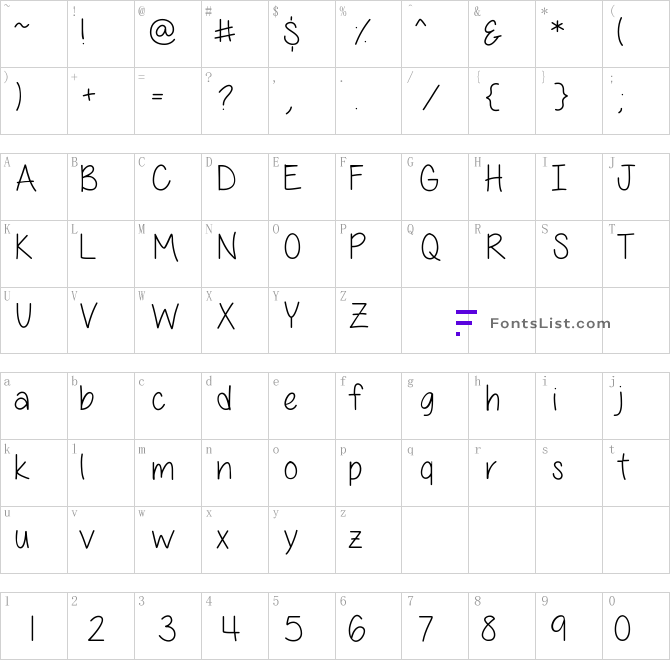
- Font Name:All Things Pink Skinny
All-Things-Pink-Skinny.ttf is a very beautiful artistic font, All-Things-Pink-Skinny.ttf is widely used in the design and printing of various books and pictures,All-Things-Pink-Skinny.ttf has a strong visual impact,All-Things-Pink-Skinny.ttf is a commonly used font in newspapers, magazines and books, and is used in posters, e-commerce Poster design, store design, logo design, font design and other fields.All-Things-Pink-Skinny.